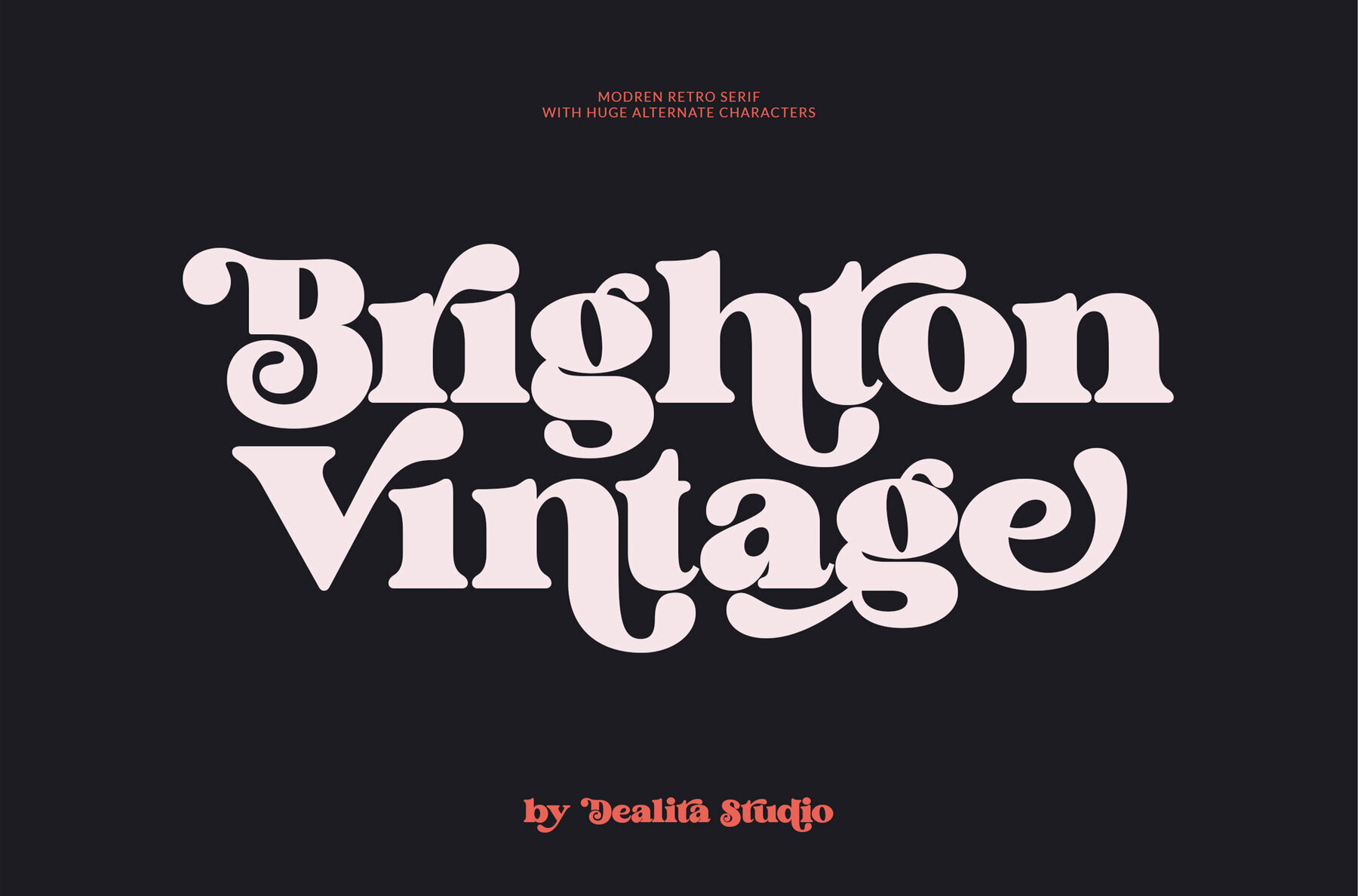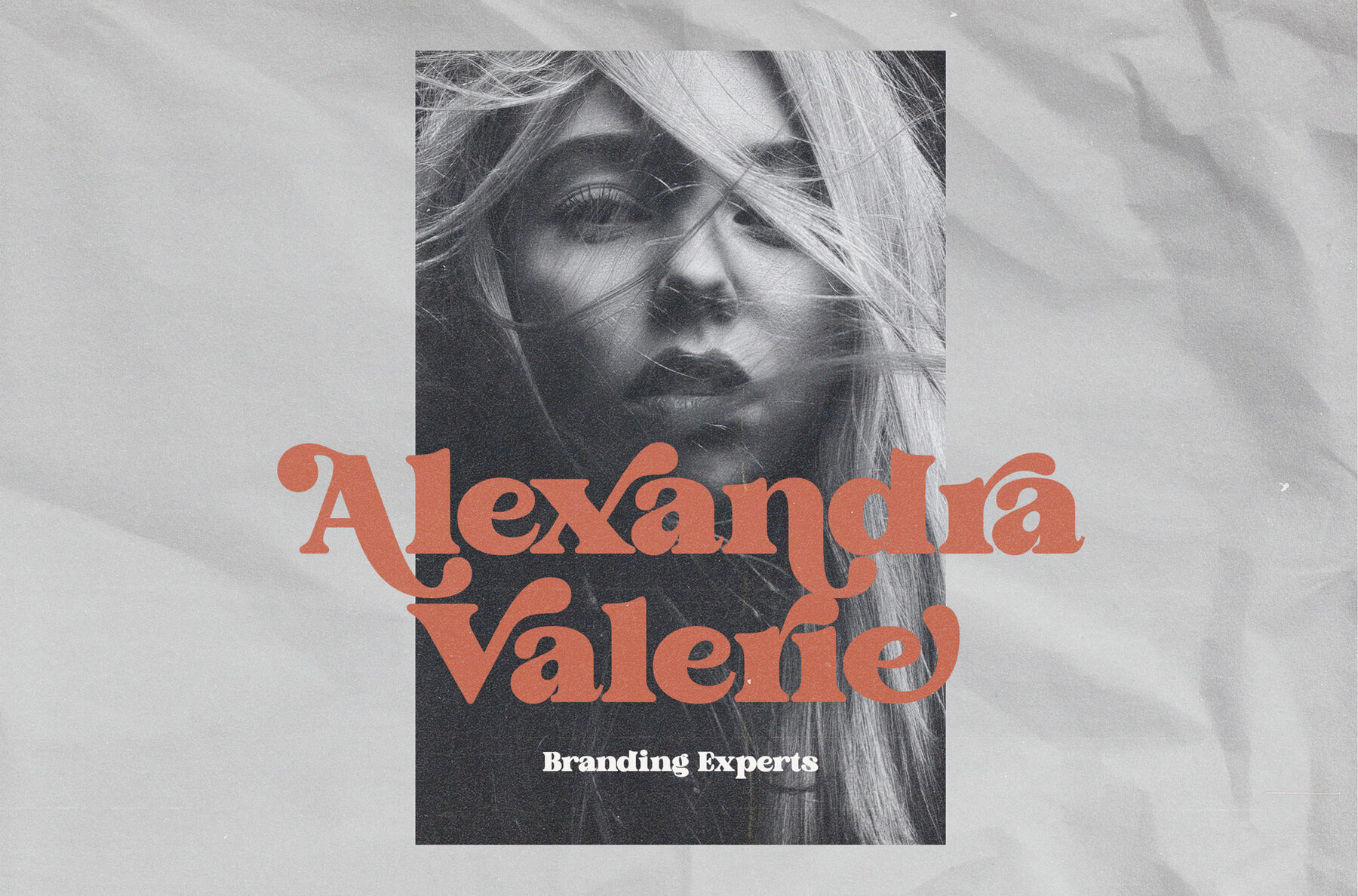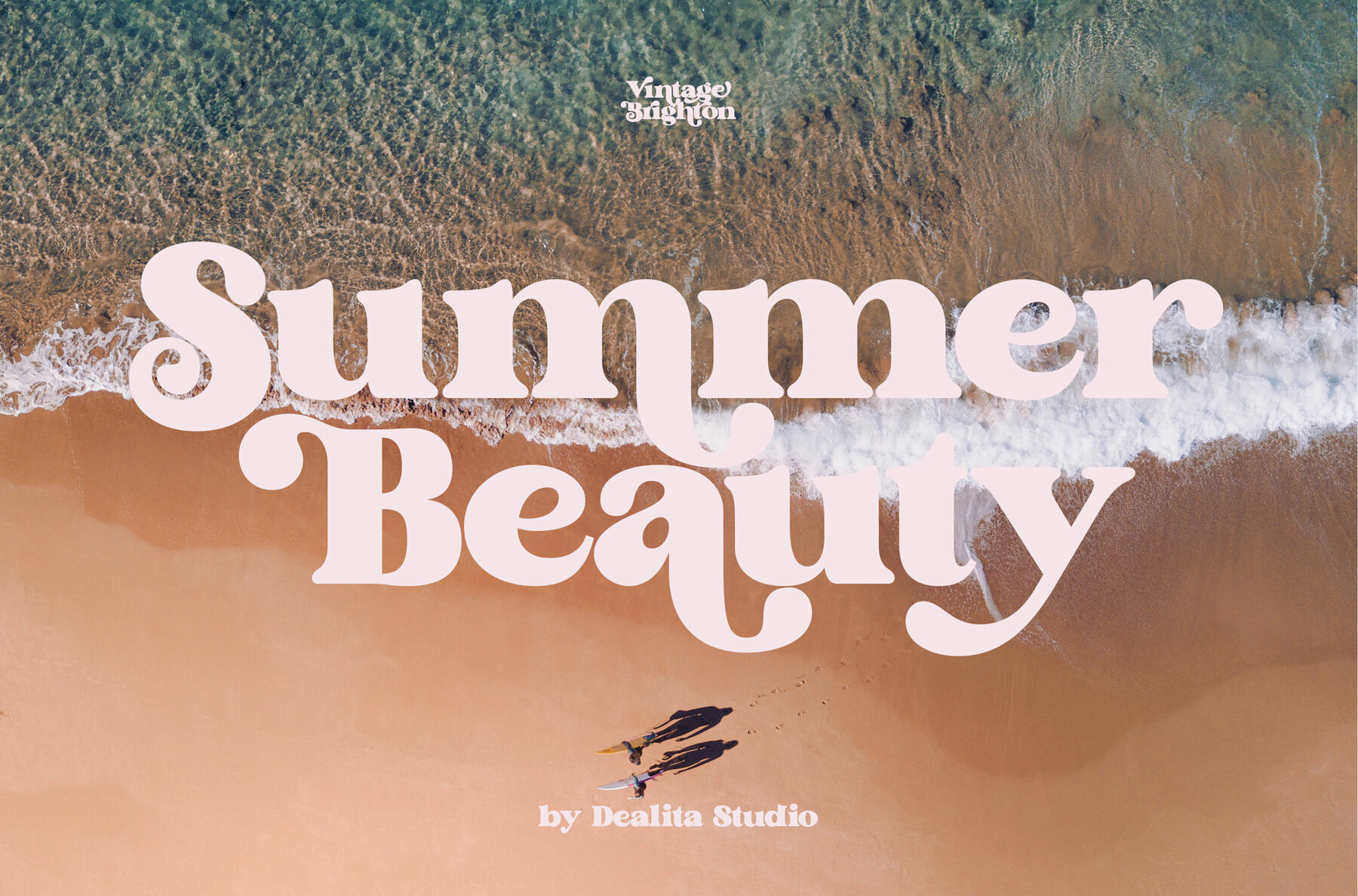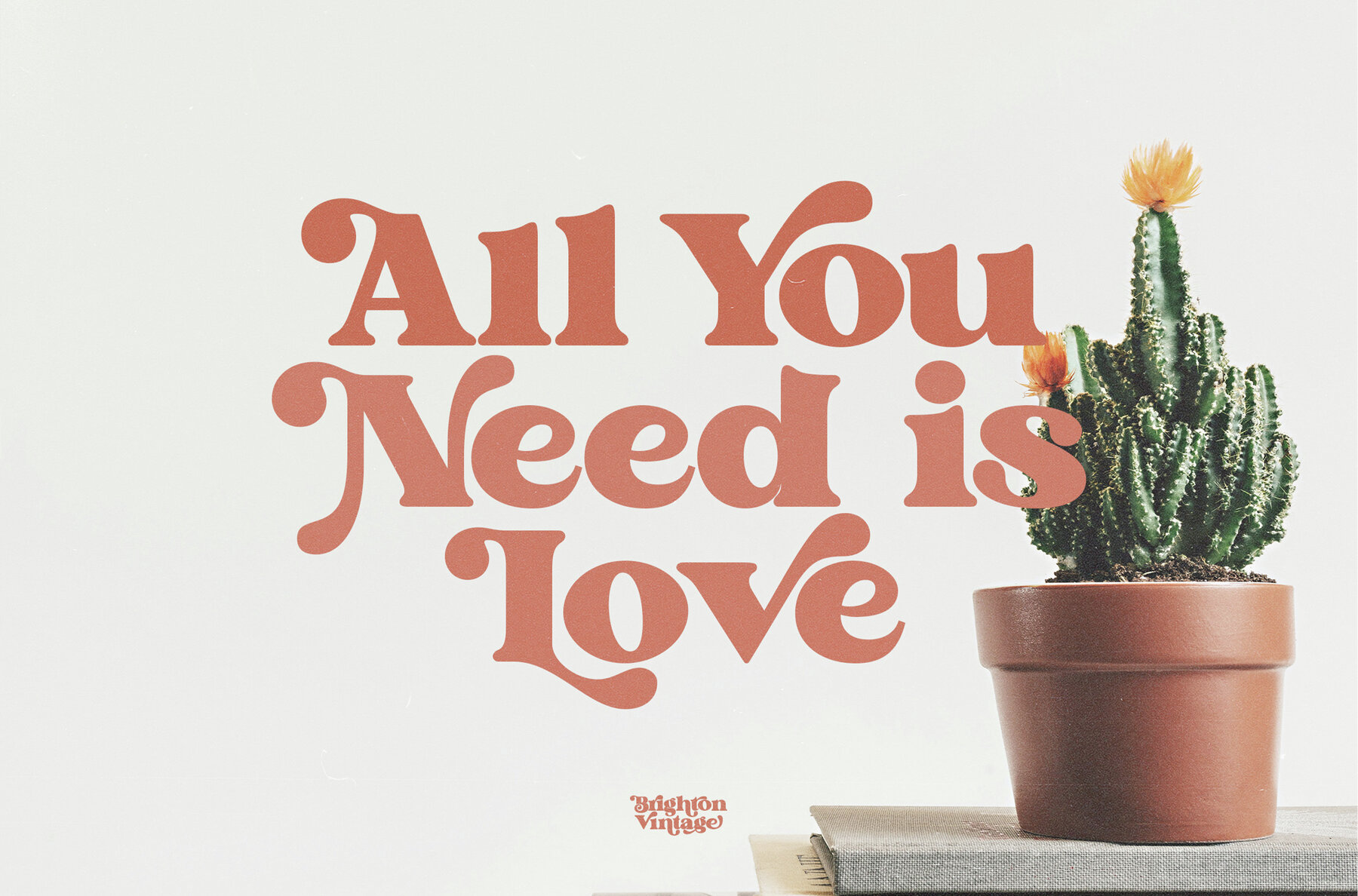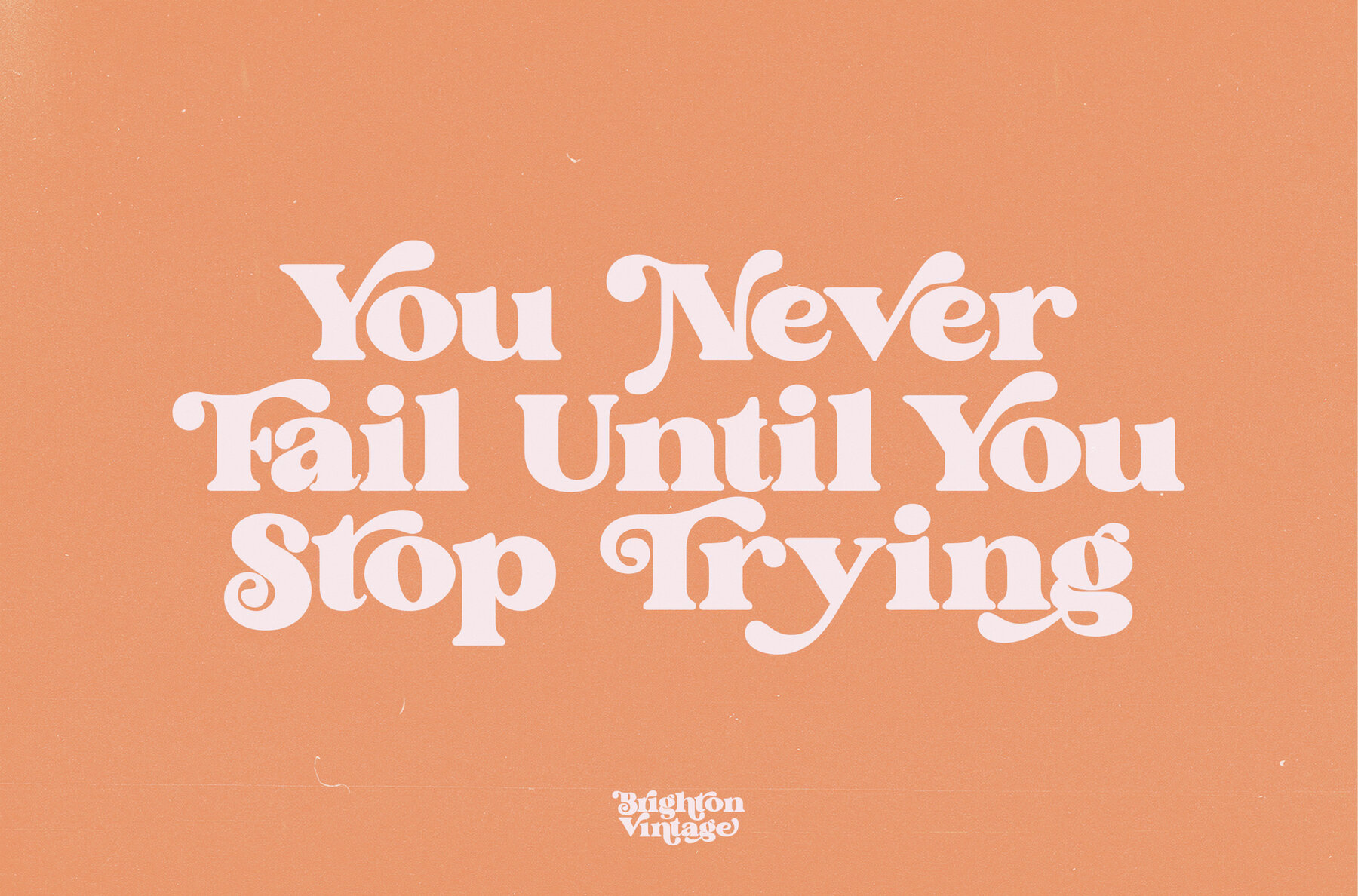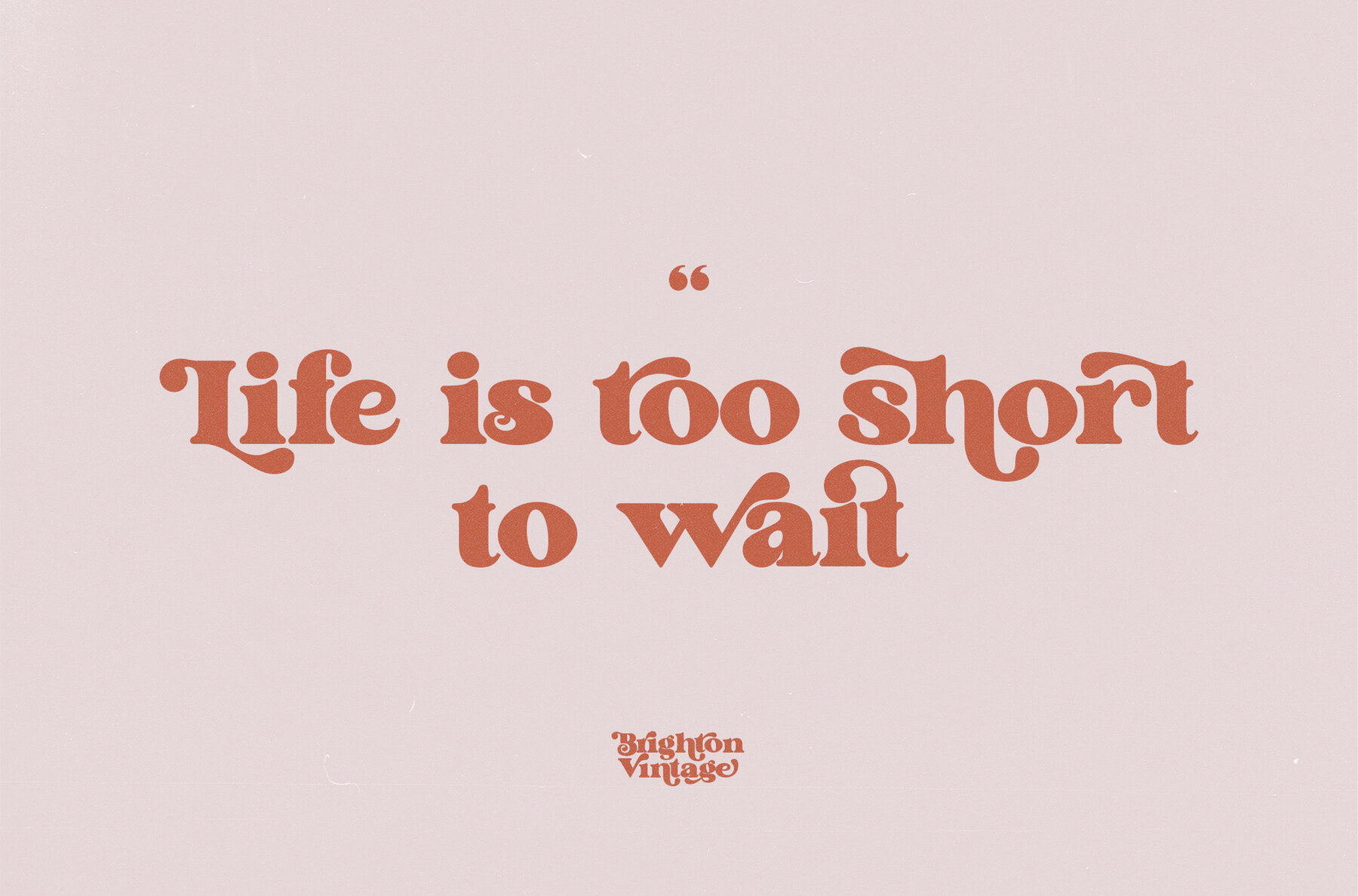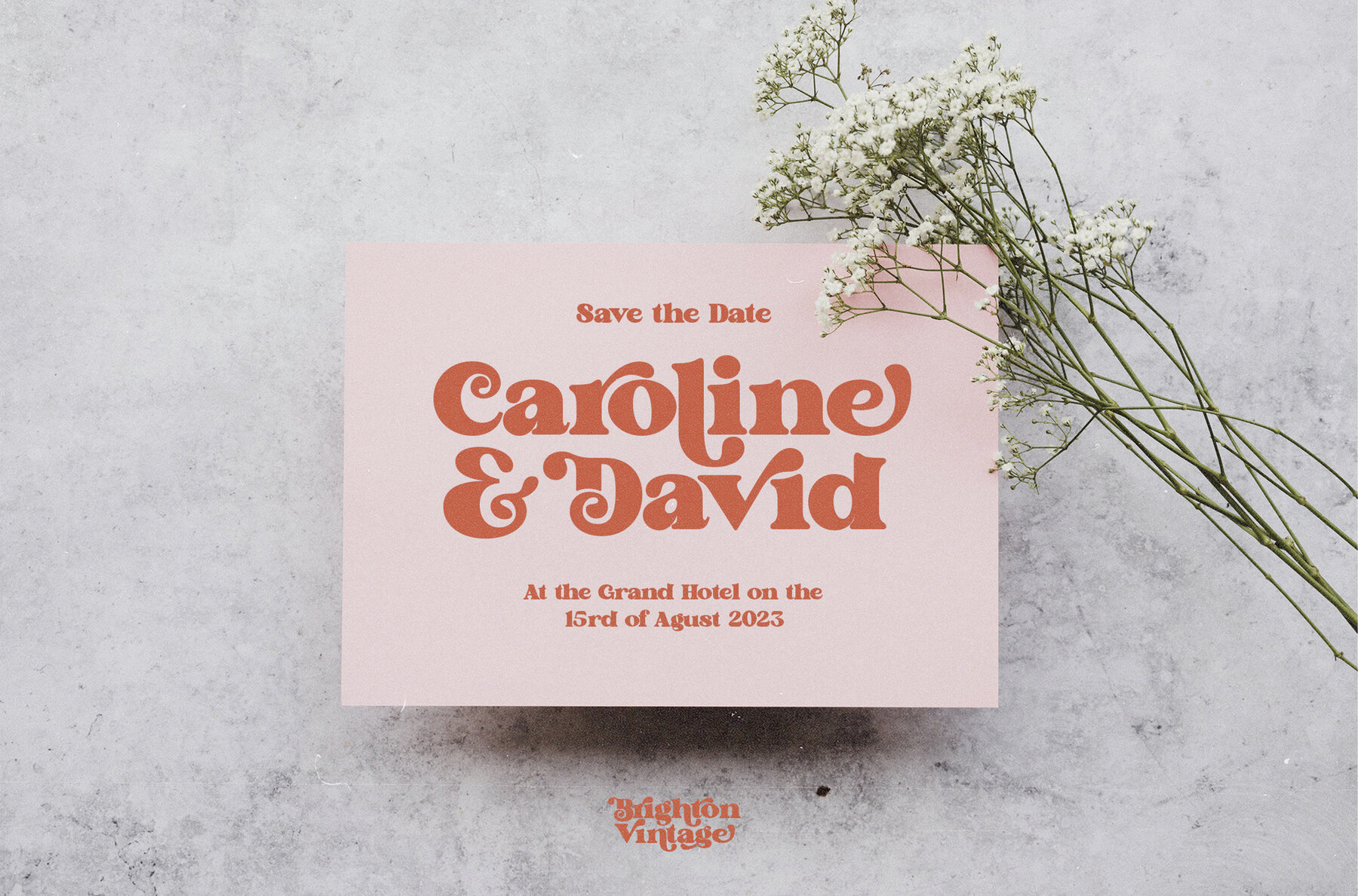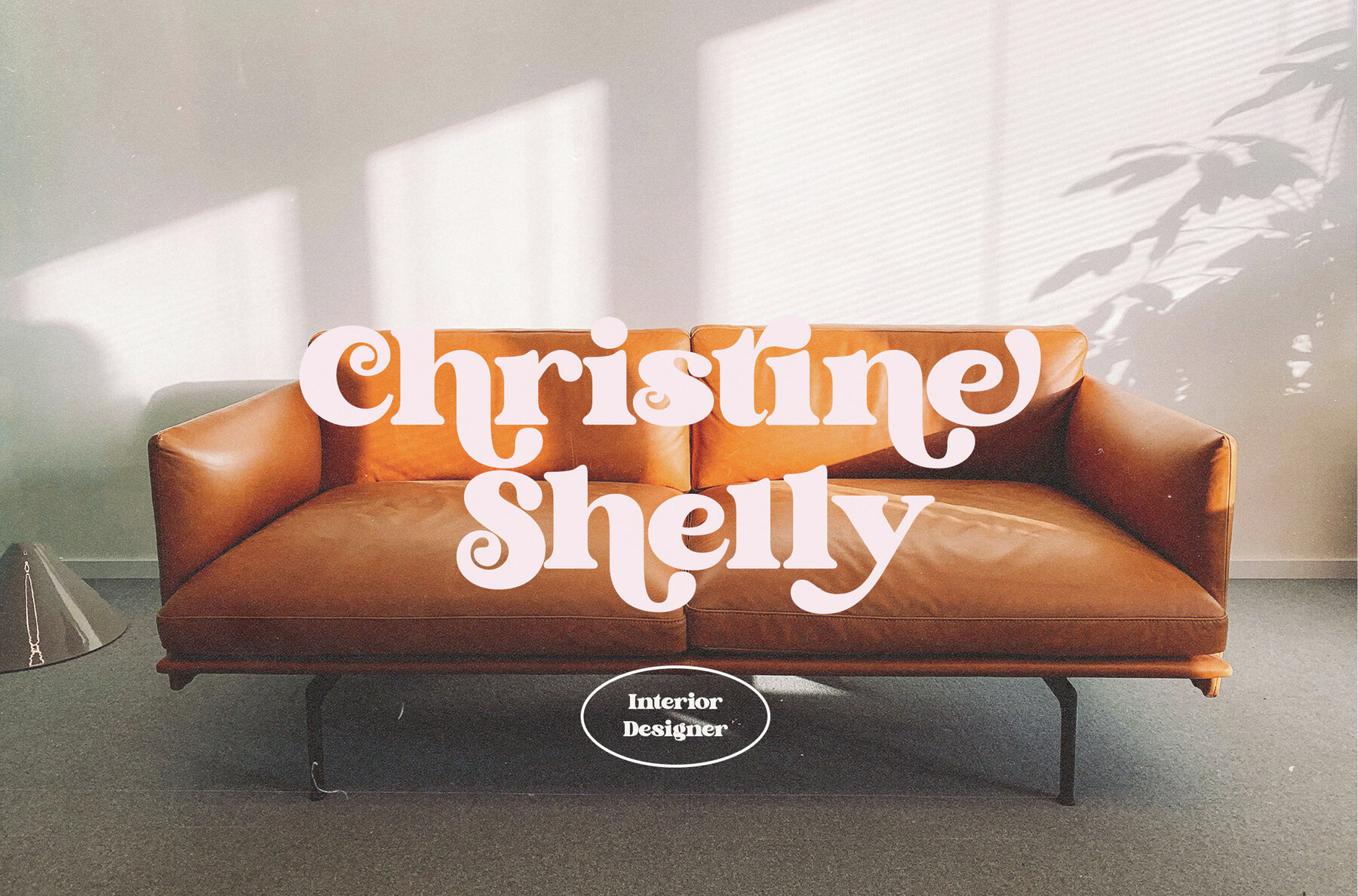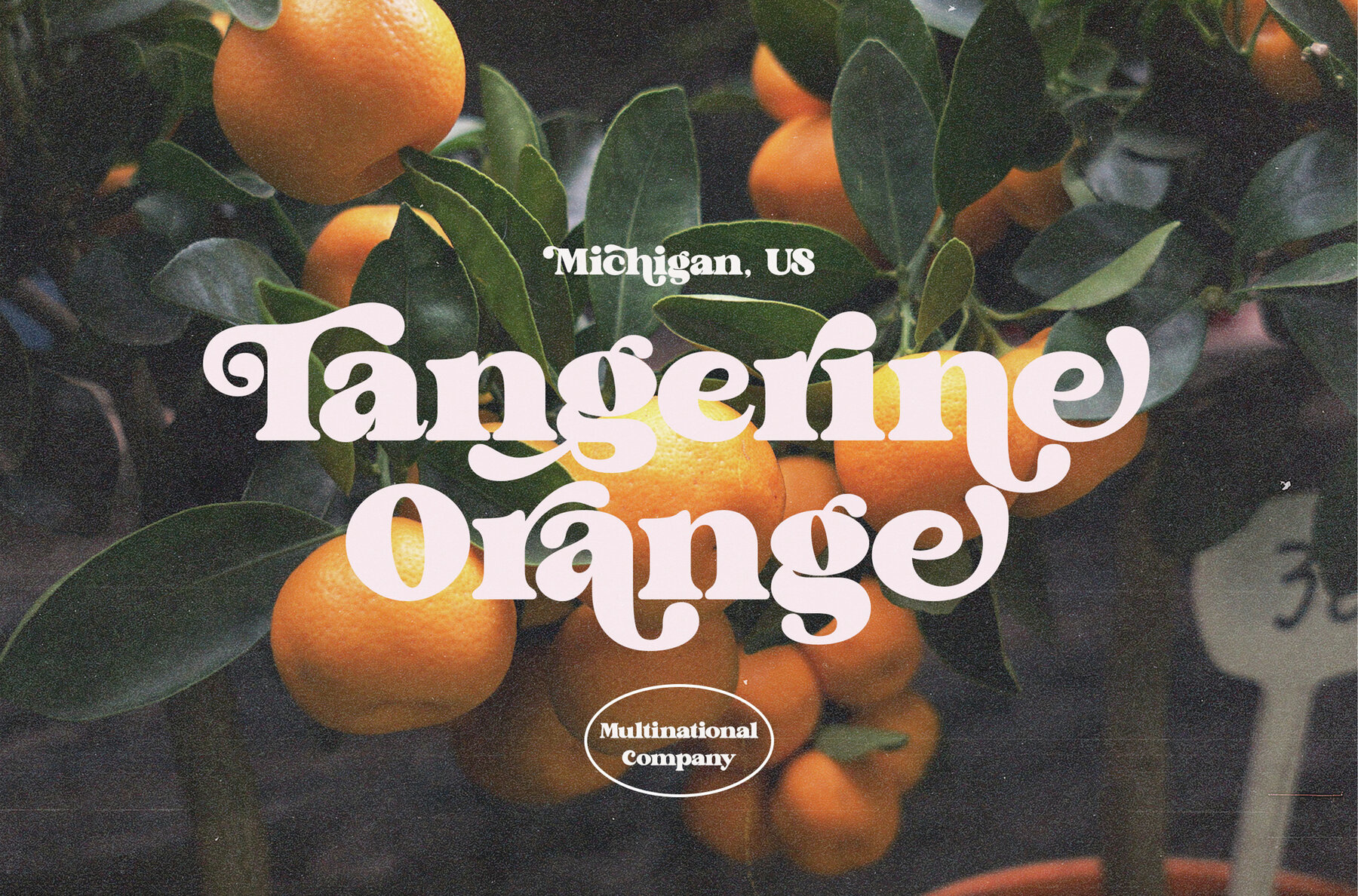
Brighton Vintage Font
Brighton vintage Regular
Brighton Vintage captures the essence of retro charm with its chunky, bold design inspired by the iconic fatface style. This groovy font blends a slight psychedelic twist that infuses your creative projects with a unique charisma, making it perfect for designers aiming to make a strong visual impact. Its versatility shines when used for logos, evocative headlines, or any design that craves a touch of nostalgia.Brighton Vintage: A Nostalgic Chunky Retro Font
Why Choose Brighton Vintage?